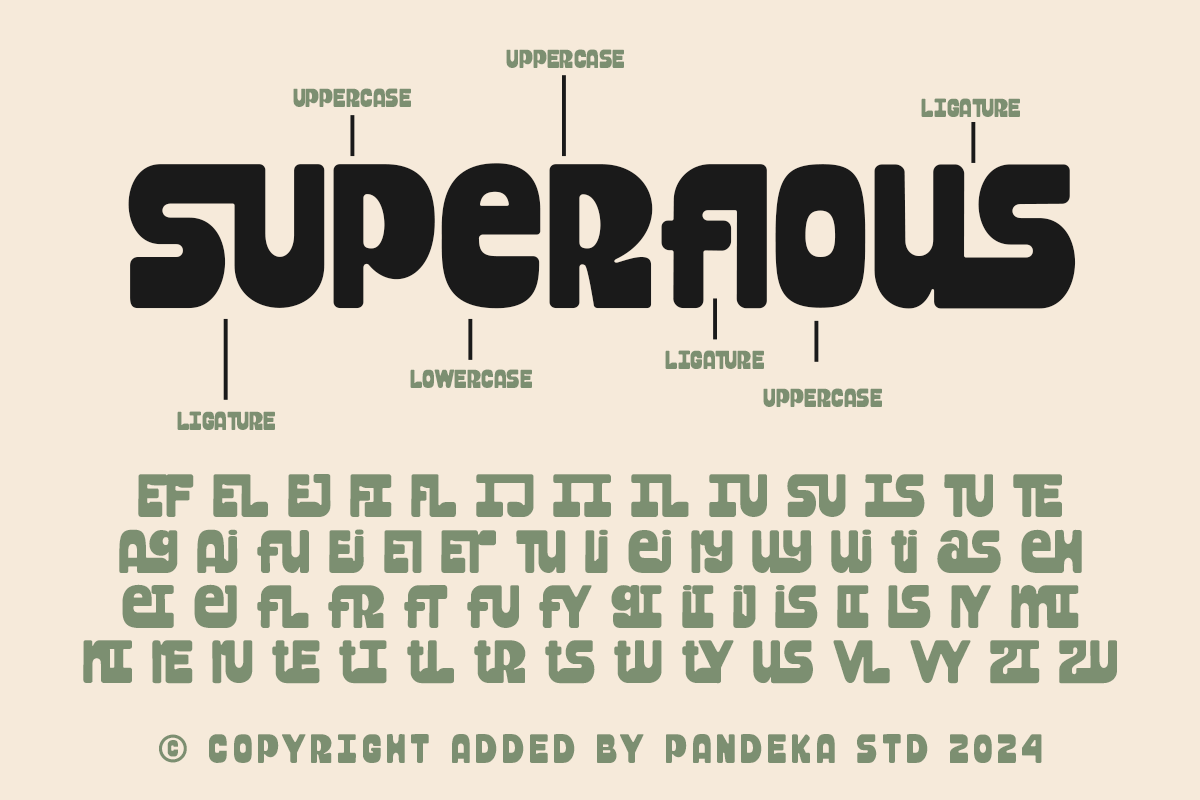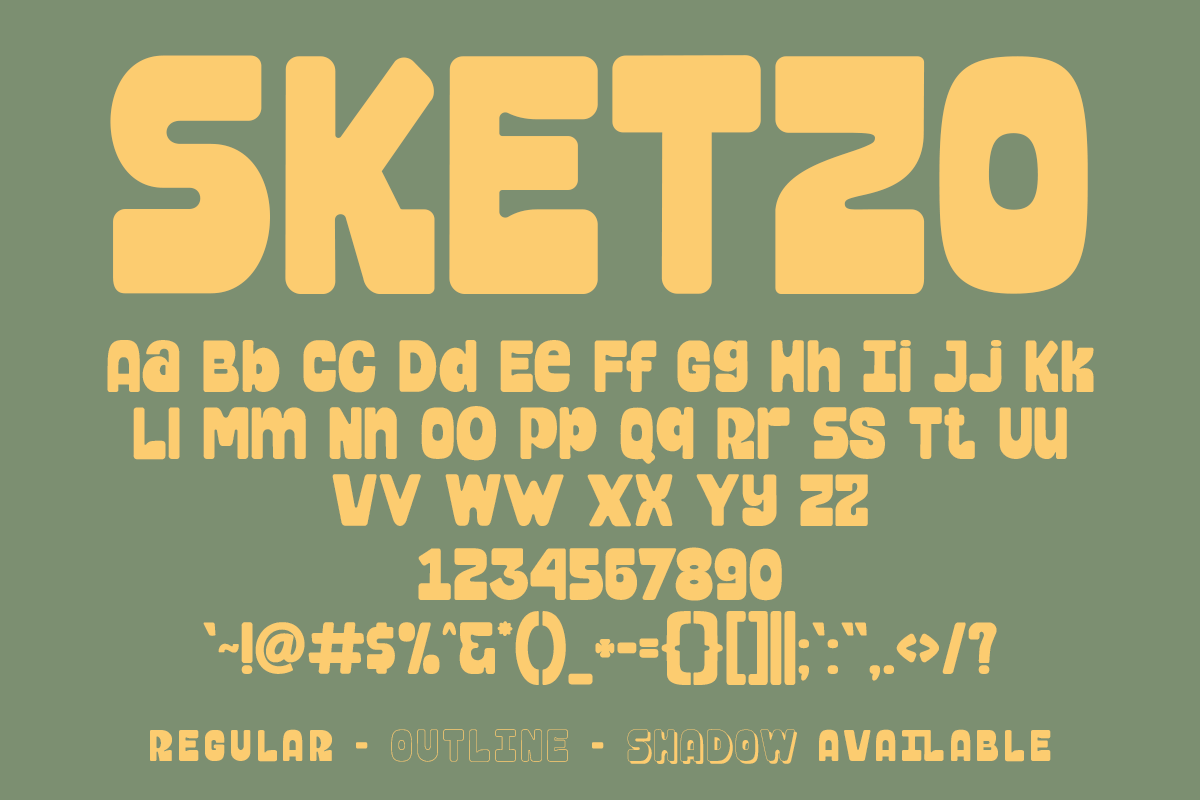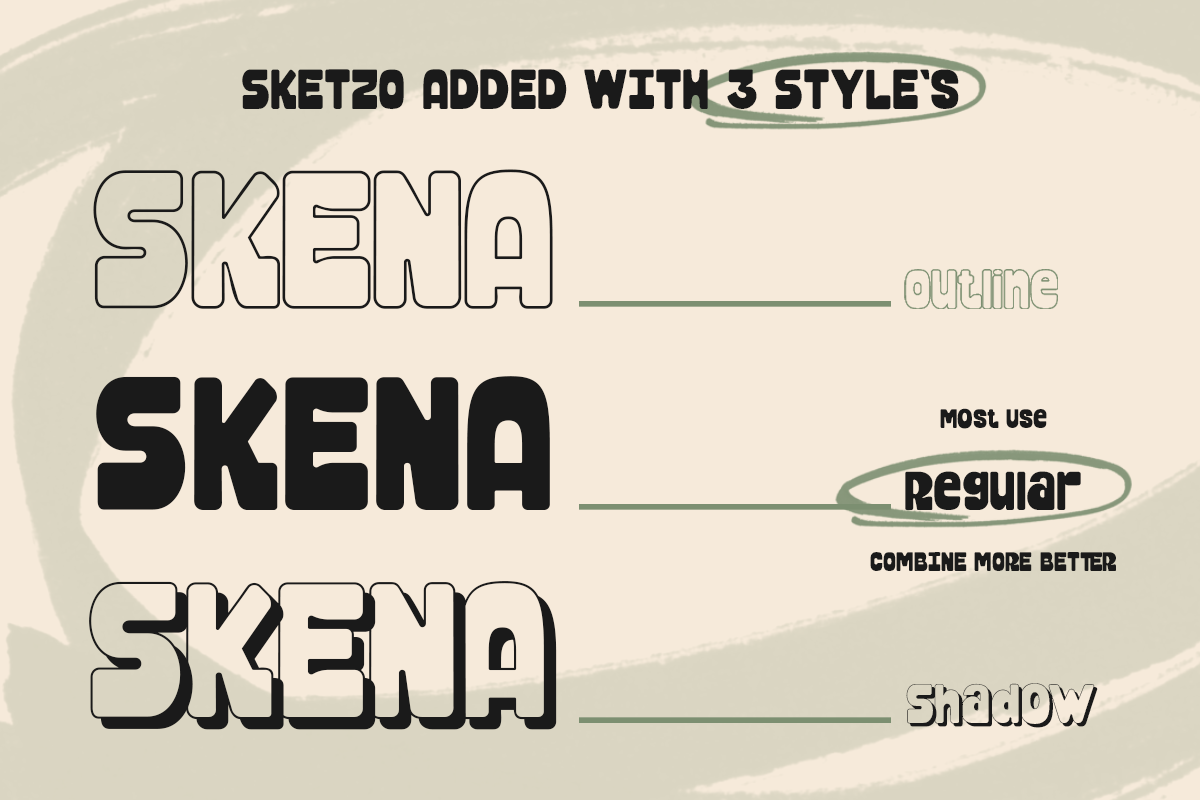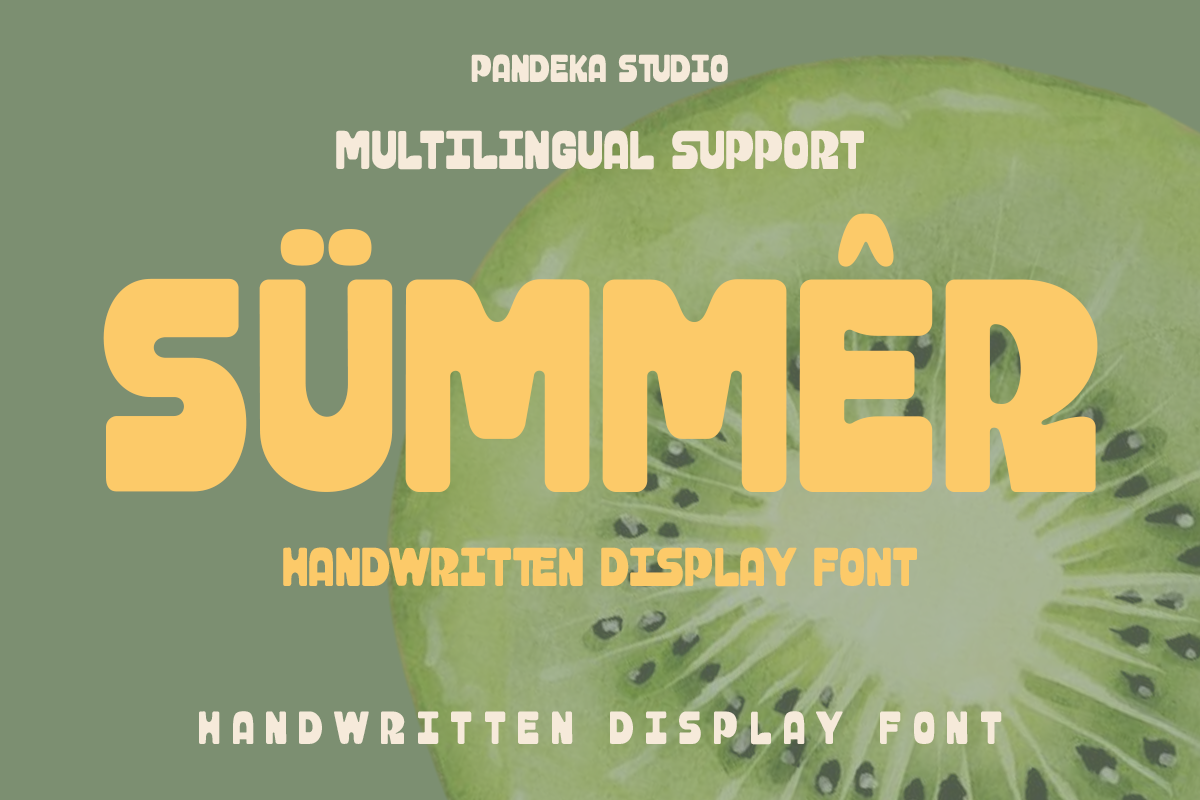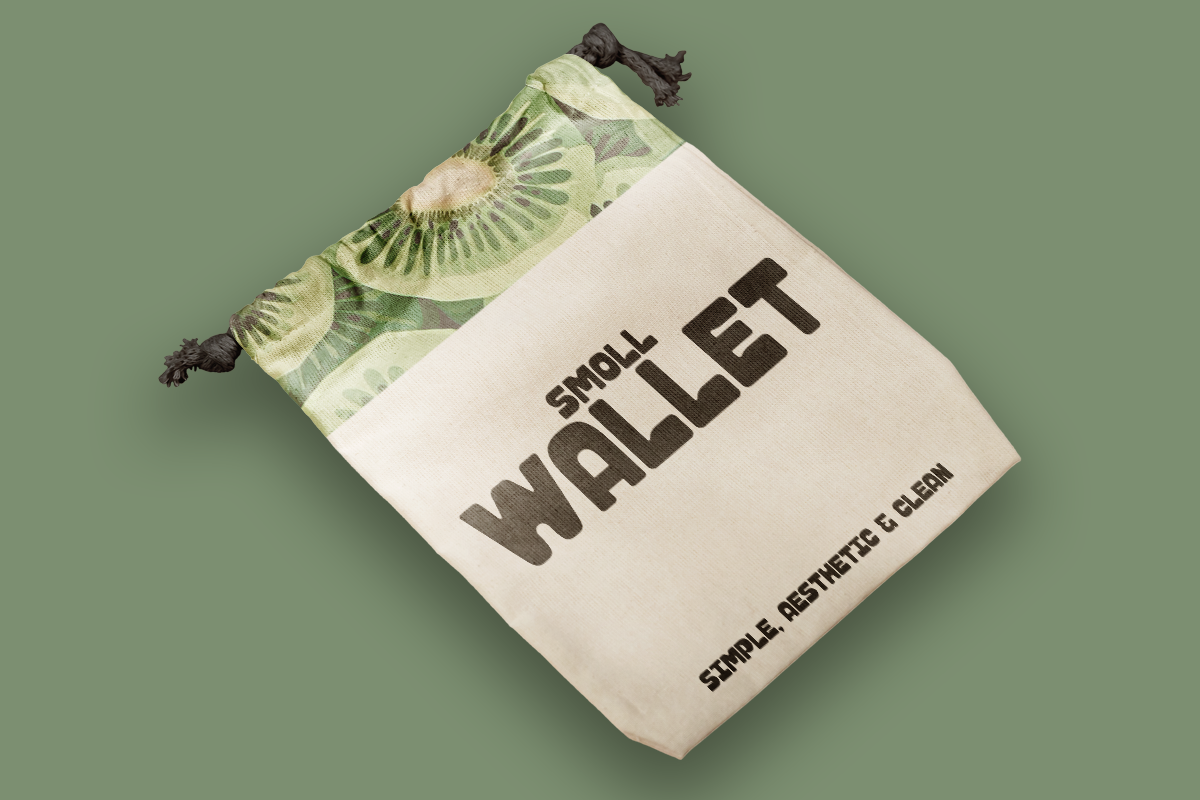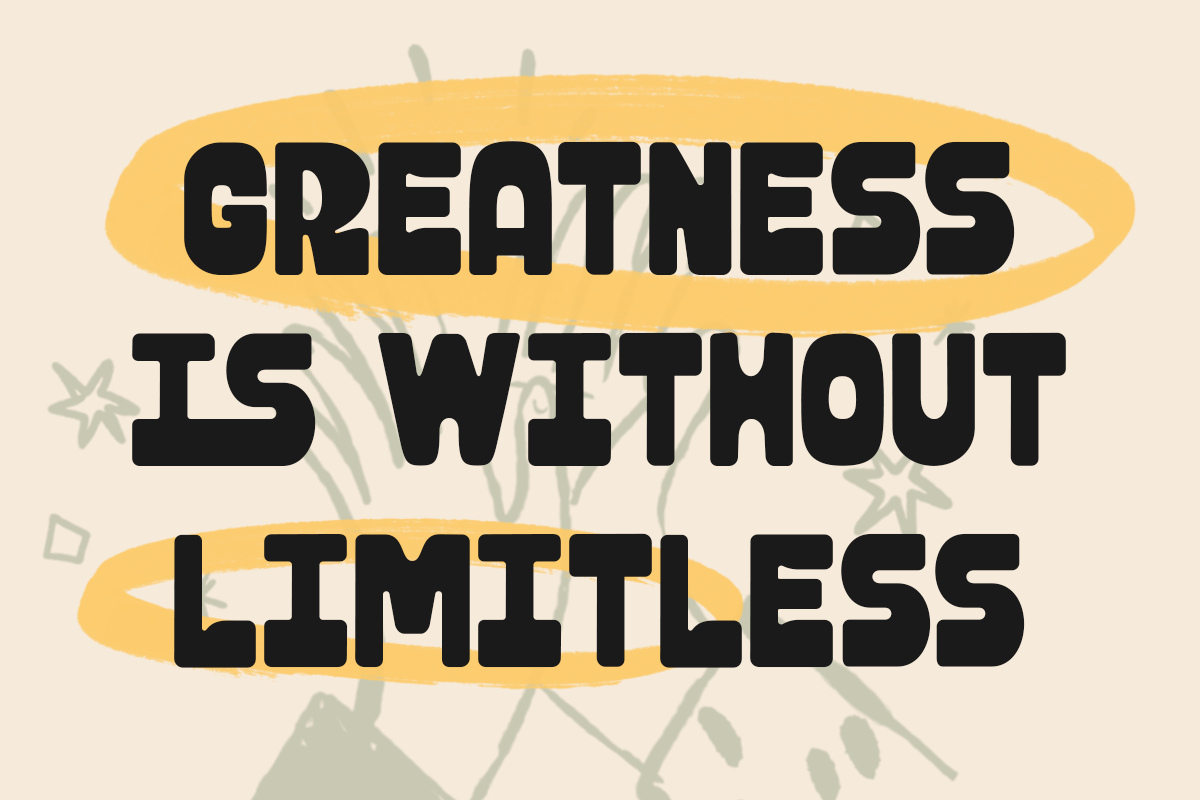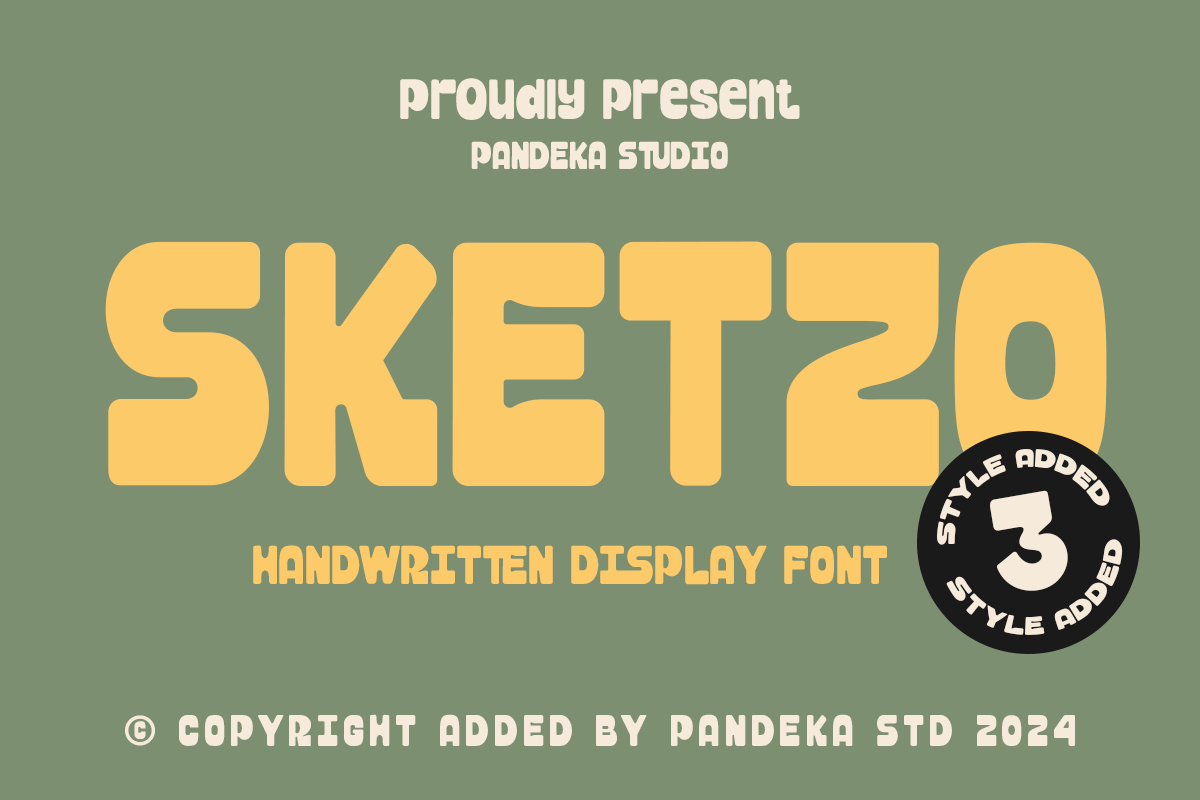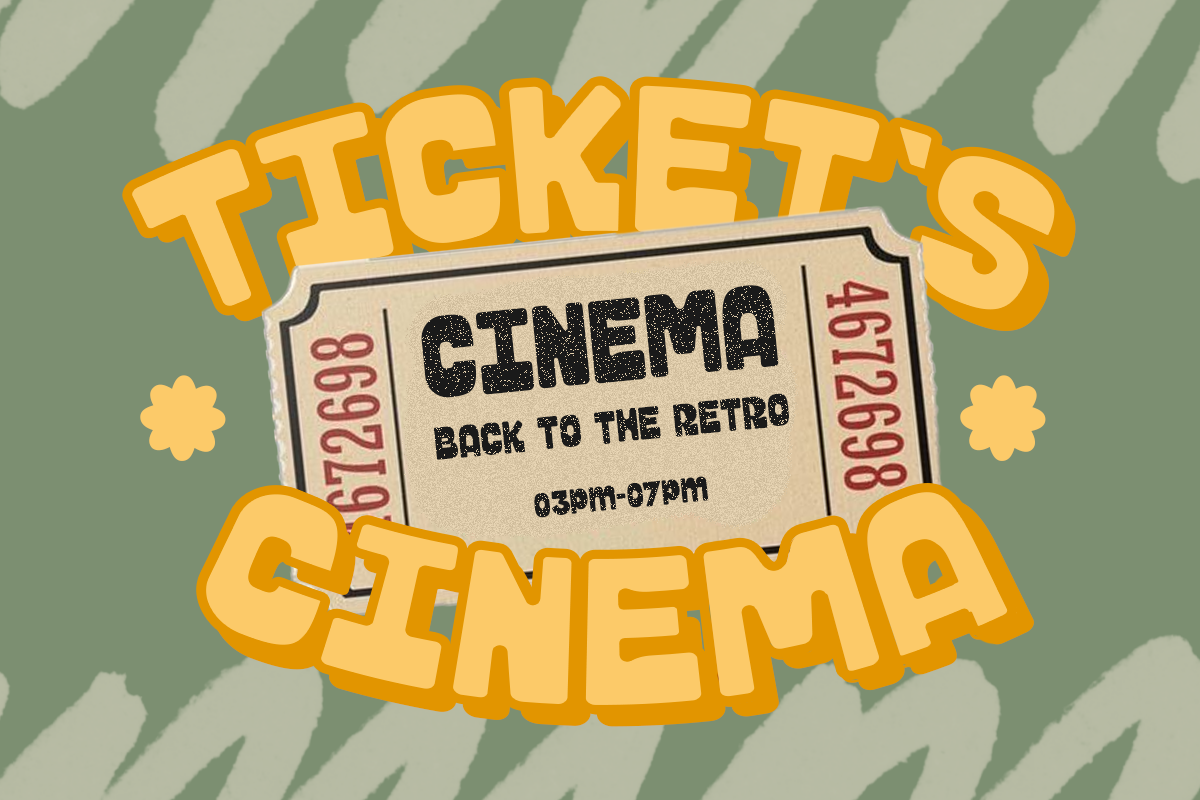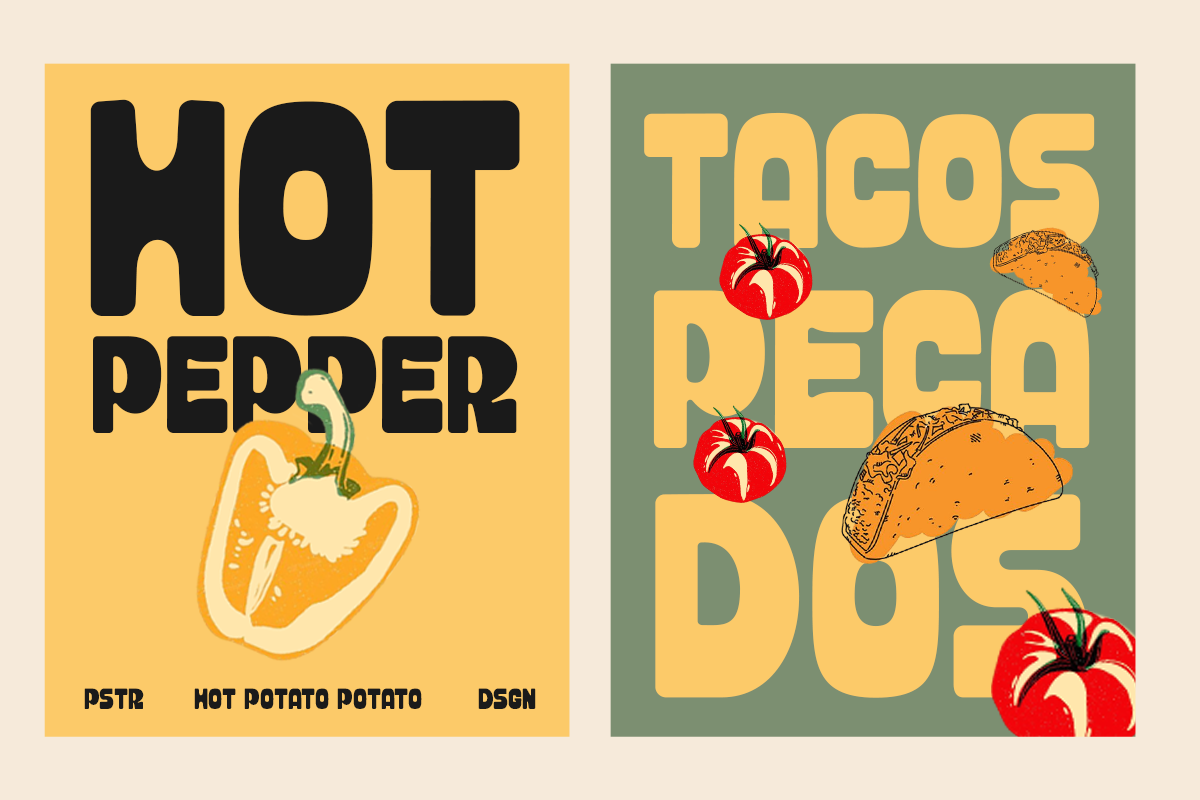
Sketzo - Handwritten Display Font
Introducing Sketzo – Handwritten Display Font with Playful Energy
Say hello to Sketzo, a handwritten display font full of character and charm! This font comes with 3 styles: Regular, Outline, and Shadow, making it versatile and perfect for a variety of creative projects.
Designed to mimic the fun and lively strokes of hand-drawn sketches, Sketzo brings a playful and creative vibe to your designs. With its natural texture and organic flow, this font feels personal, approachable, and ideal for designs that need a friendly and unique touch.
Whether you're working on children’s books, posters, packaging, branding, or any creative project that needs a burst of energy, Sketzo has got you covered. Its versatility and boldness make it the perfect choice for adding personality to your designs.
- 3 Styles: Regular, Outline, and Shadow
- Full Character Set: Uppercase, lowercase, numbers, symbols, and punctuation
Bring your ideas to life with the lively and playful strokes of Sketzo! Whether you want to create an eye-catching poster, a whimsical brand identity, or fun packaging, this font will make your designs unforgettable.